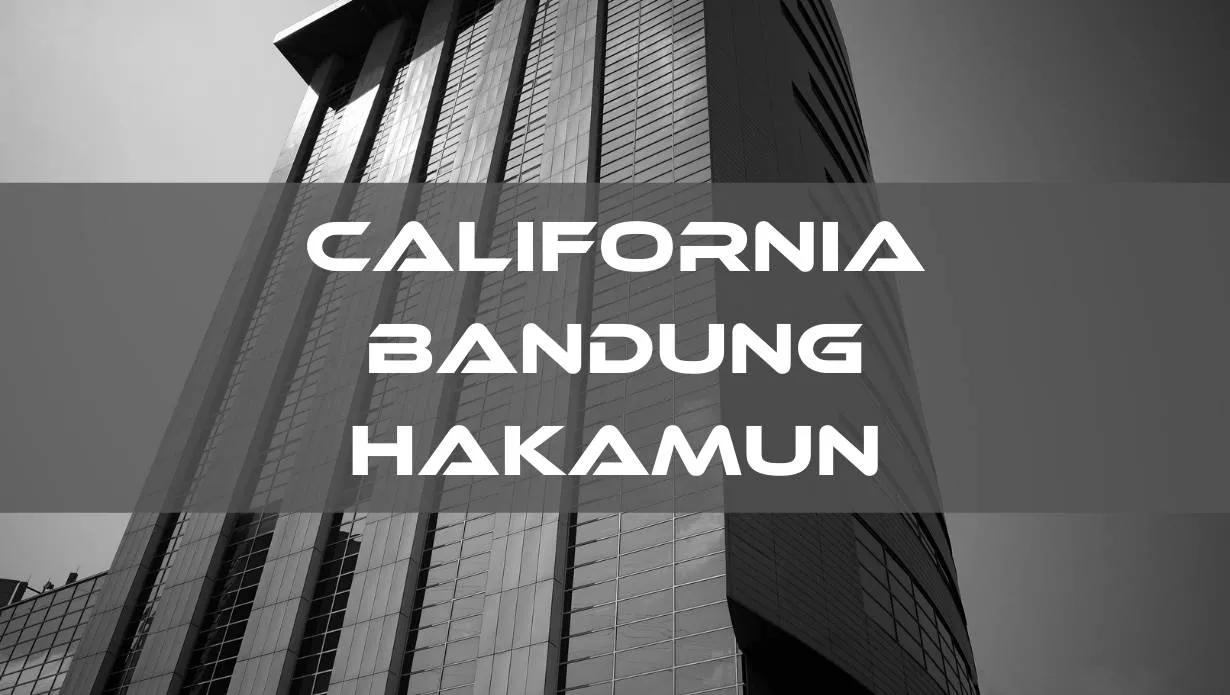
The Ethnocentric font is a typeface that was designed to be highly readable and legible. It is based on the Latin alphabet and includes some additional characters to support other languages. The font was developed by Type Associates, Inc. and released in 1995.
This has a clean and modern look that makes it very legible. It is also quite versatile, making it a good choice for a variety of applications. If you need a font that is both readable and stylish, This is a good option. This display font makes a very attractive pair with Monopoly Sans Font this font has very attractive glyphs that get a new shape with this font.
- Ethnocentric Regular
- Ethnocentric ExtraLight
- Ethnocentric Light
- Ethnocentric Book
- Ethnocentric Medium
- Ethnocentric SemiBold
- Ethnocentric Bold
- Ethnocentric Italic
- Ethnocentric UltraLight Italic
View of Ethnocentric Font
| Designer | Ray Larabie |
| Style | Display |